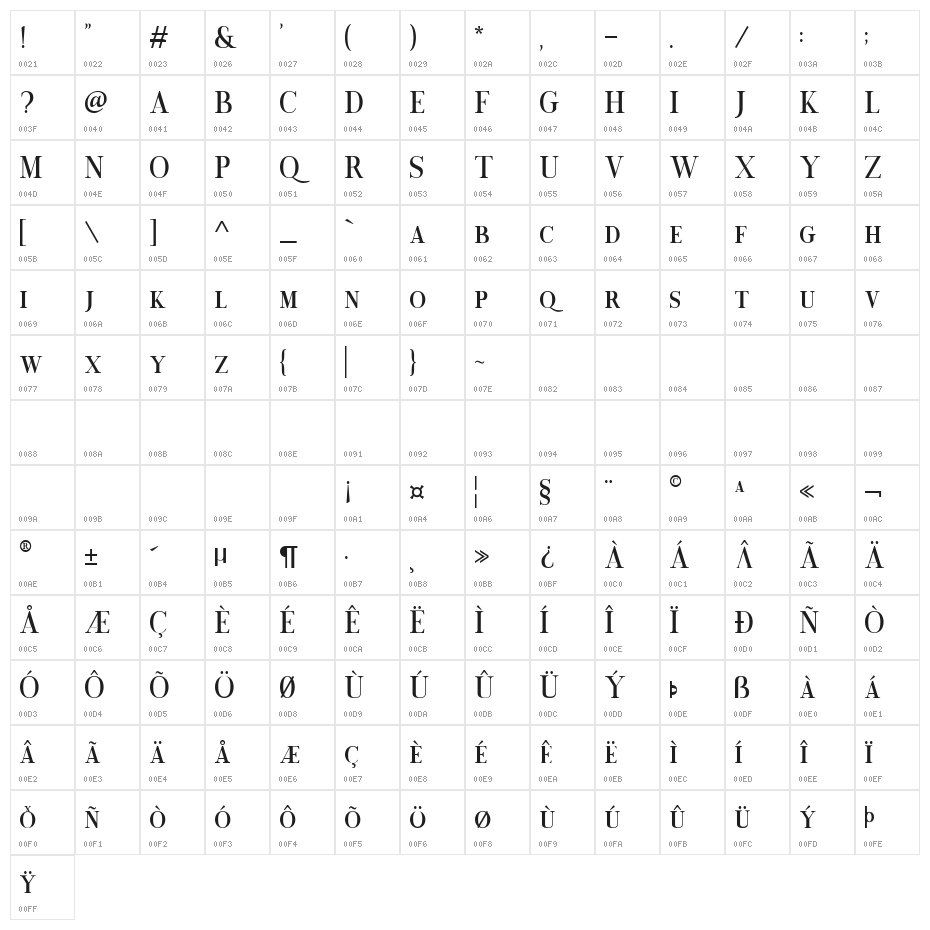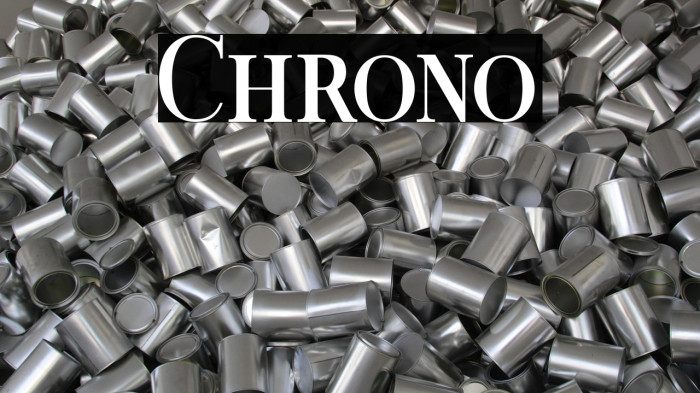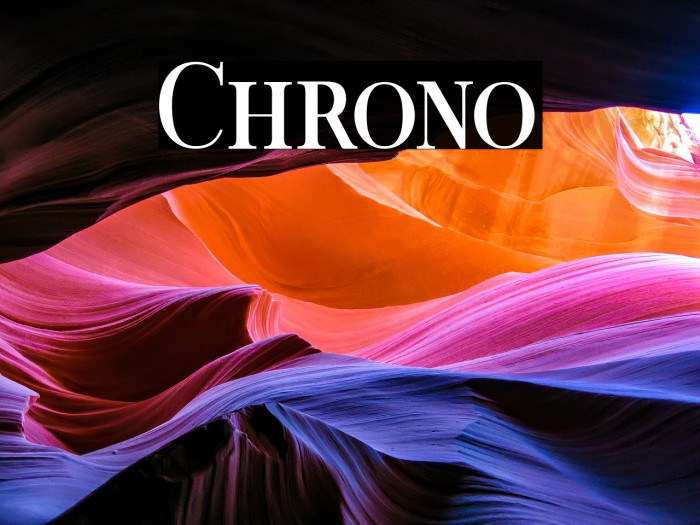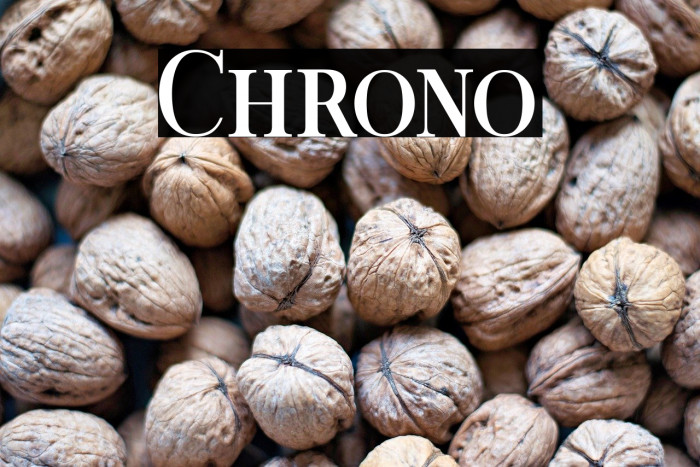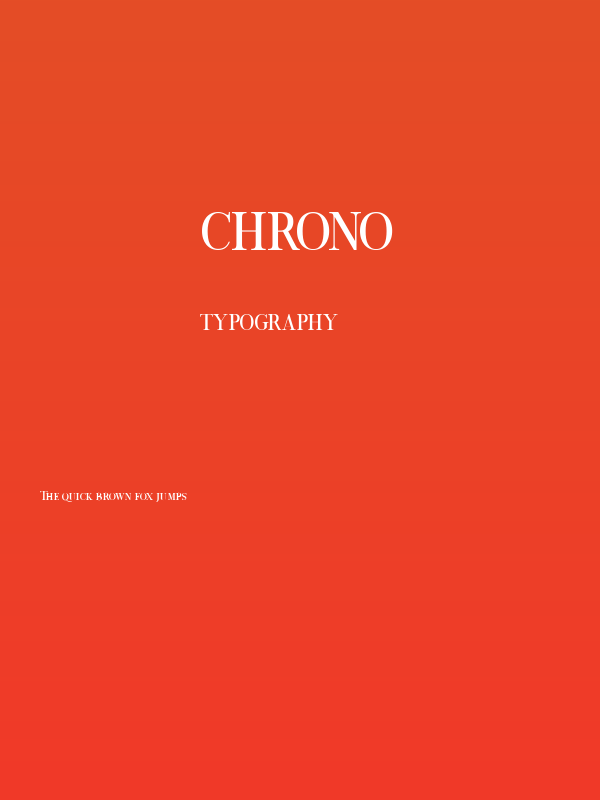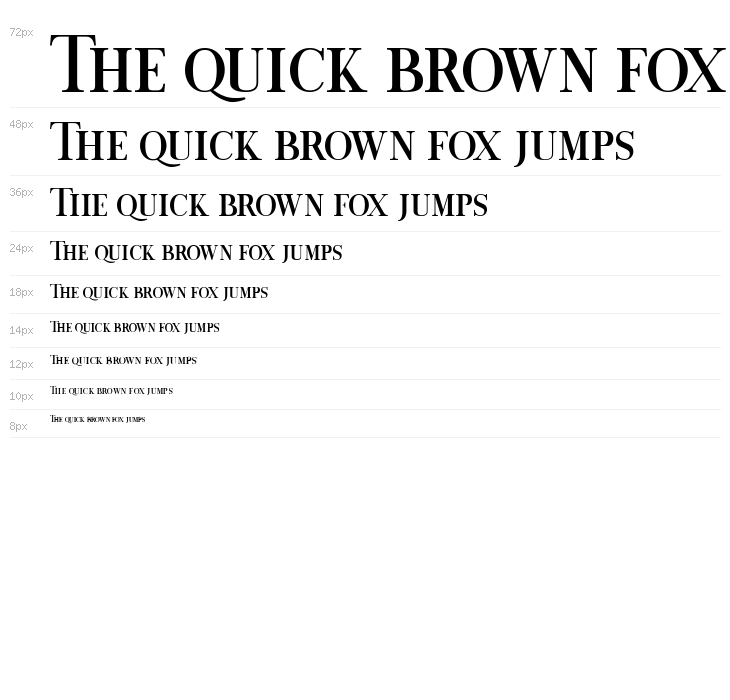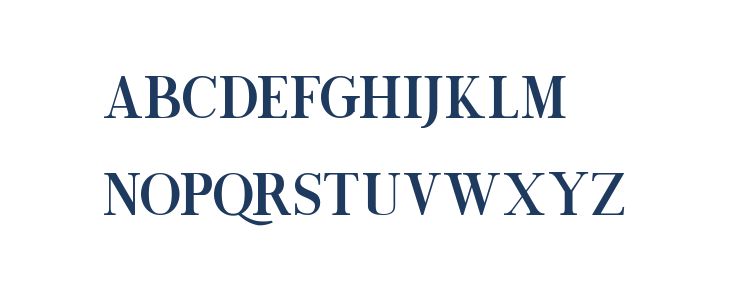
Chrono Font
Chrono Description
This font exudes a classic elegance with its high contrast between thick and thin strokes, characteristic of a traditional serif typeface. The serifs are pronounced and sharp, adding a sense of formality and sophistication. The overall design is balanced, with a slight vertical emphasis that enhances readability. The uppercase letters are stately and commanding, while the lowercase letters maintain a consistent style that complements the uppercase. The numerals are clear and distinct, making them suitable for both text and display purposes. Special characters are designed with the same attention to detail, ensuring they integrate seamlessly with the rest of the typeface.